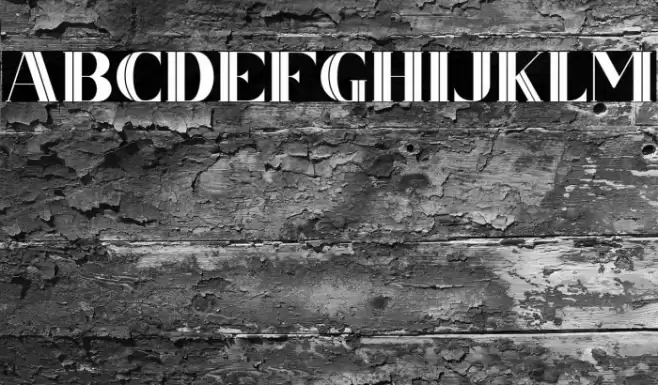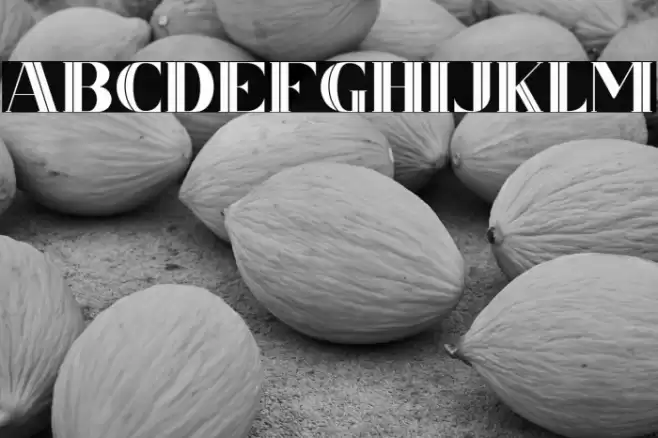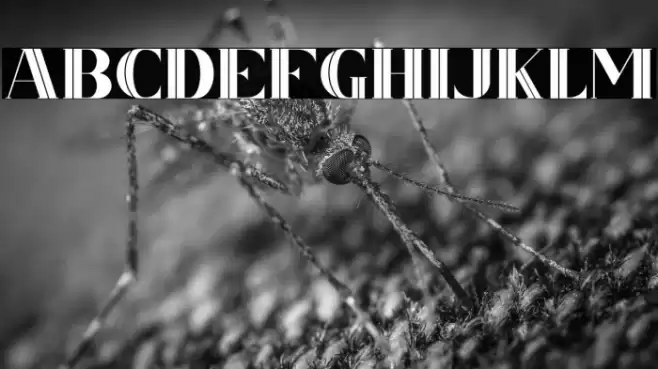
CSNancyFree-Inner Font
CSNancyFree-Inner Description
This font features a bold and striking design with a high contrast between thick and thin strokes, creating a dramatic and eye-catching appearance. The characters are constructed with sharp, angular lines and a modern aesthetic, making it ideal for impactful headlines and titles. The uppercase letters exhibit a unique style with vertical lines that add a sense of movement and energy. The overall design is both contemporary and artistic, suitable for projects that require a strong visual presence.
A bold, high-contrast font with sharp, angular lines for modern headlines from Uncategorized fonts.